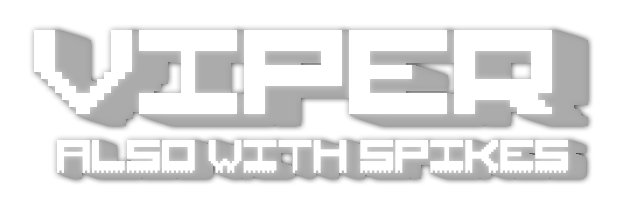
Font name: | Viper |
Author: | Maowcraft |
Do you like Bitmap fonts that are easily readable (I'm looking at you Simon), and you can use in any project for free? Well here's your solution, a pixel font that looks a *bit* too much like Arial Bold! |